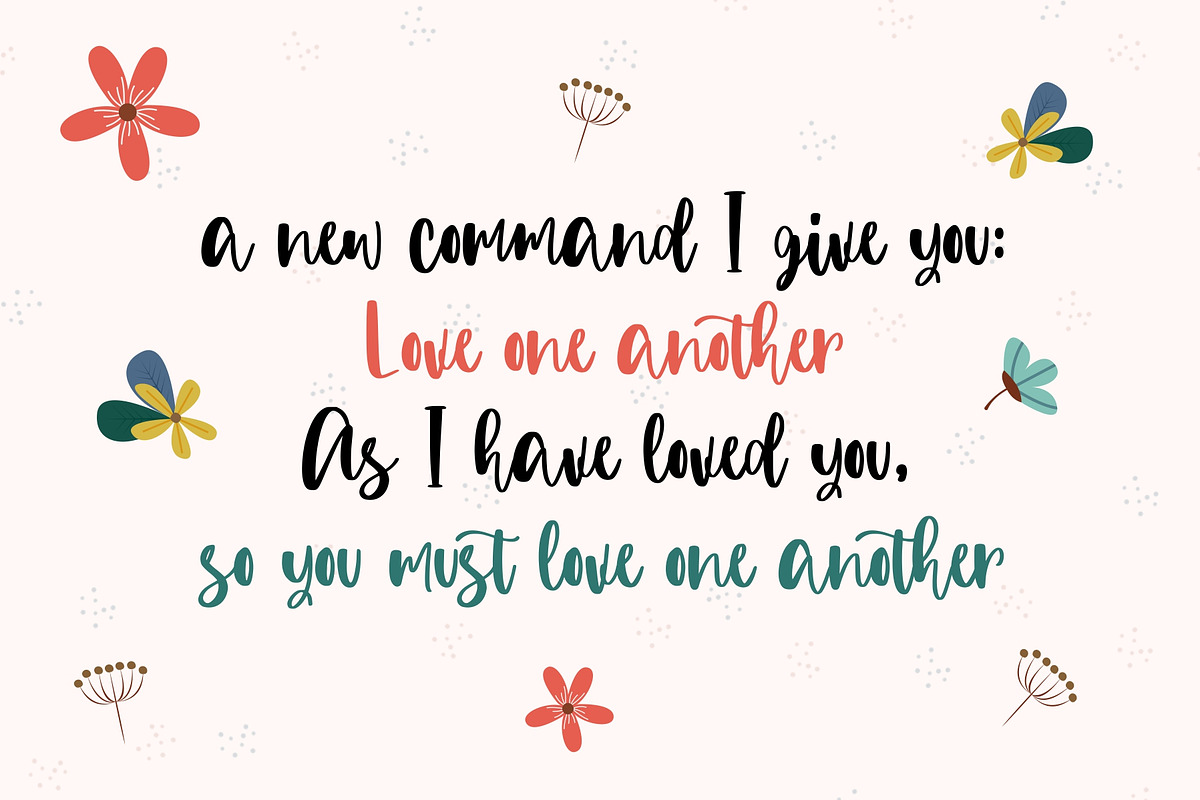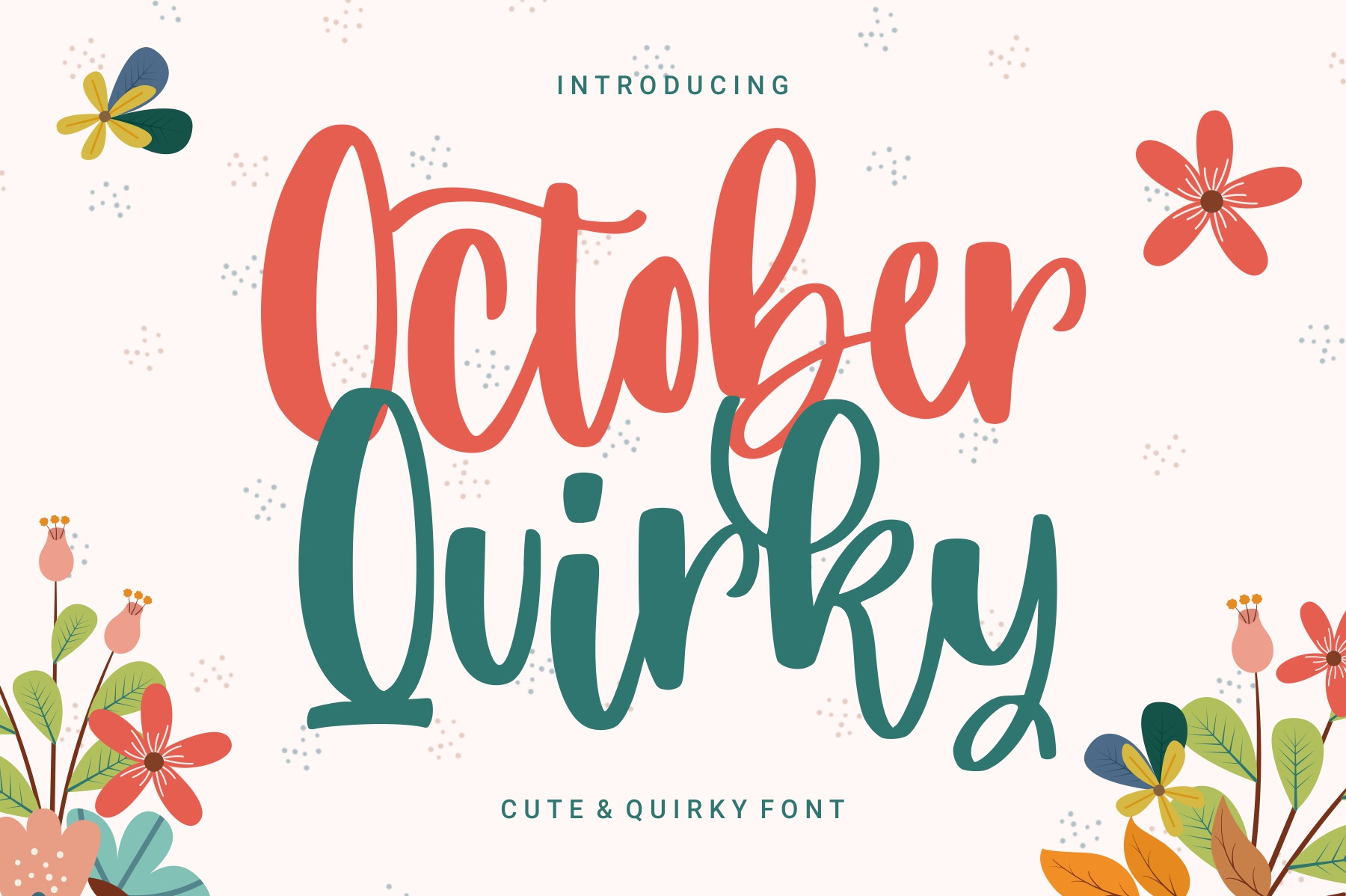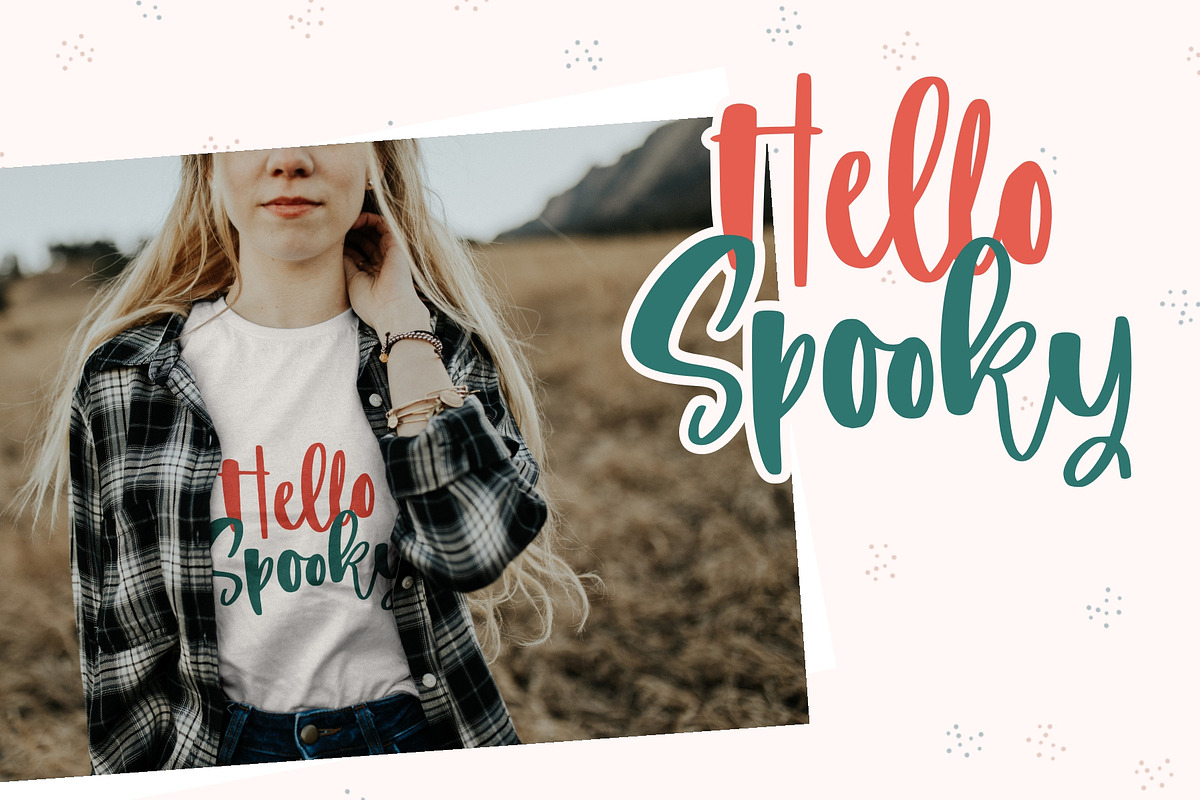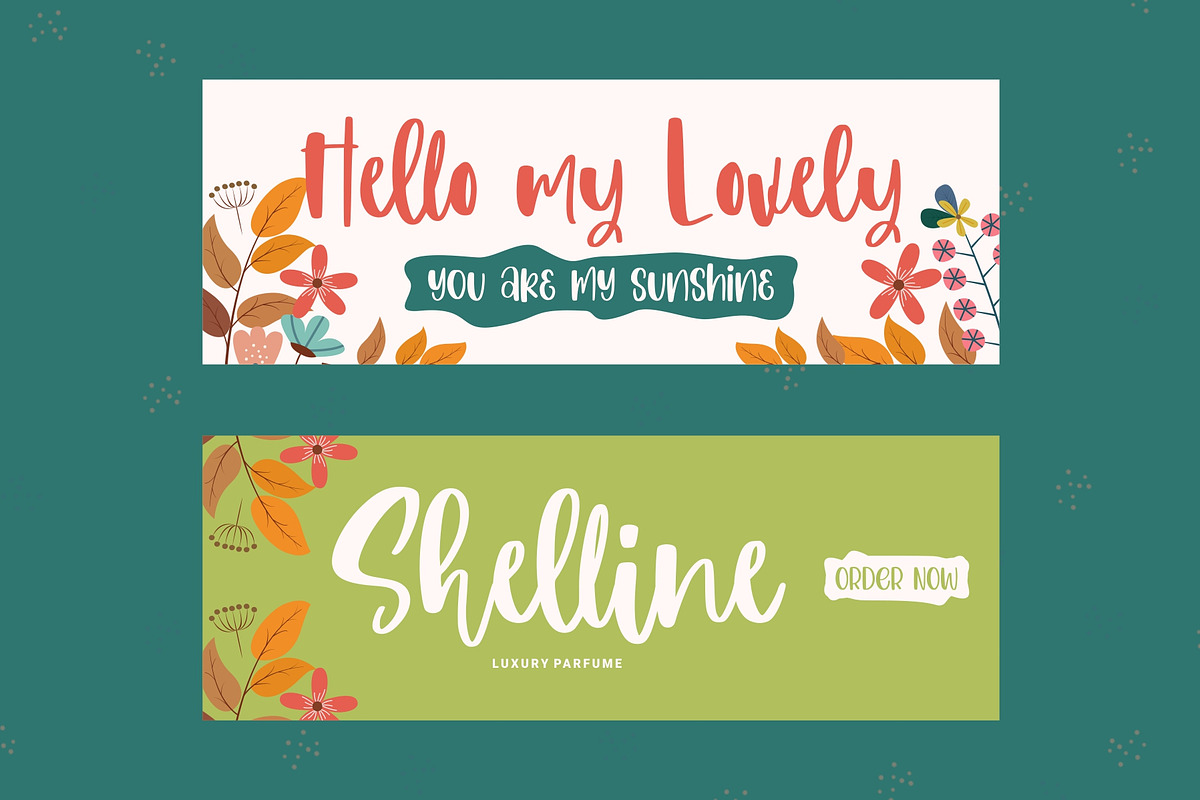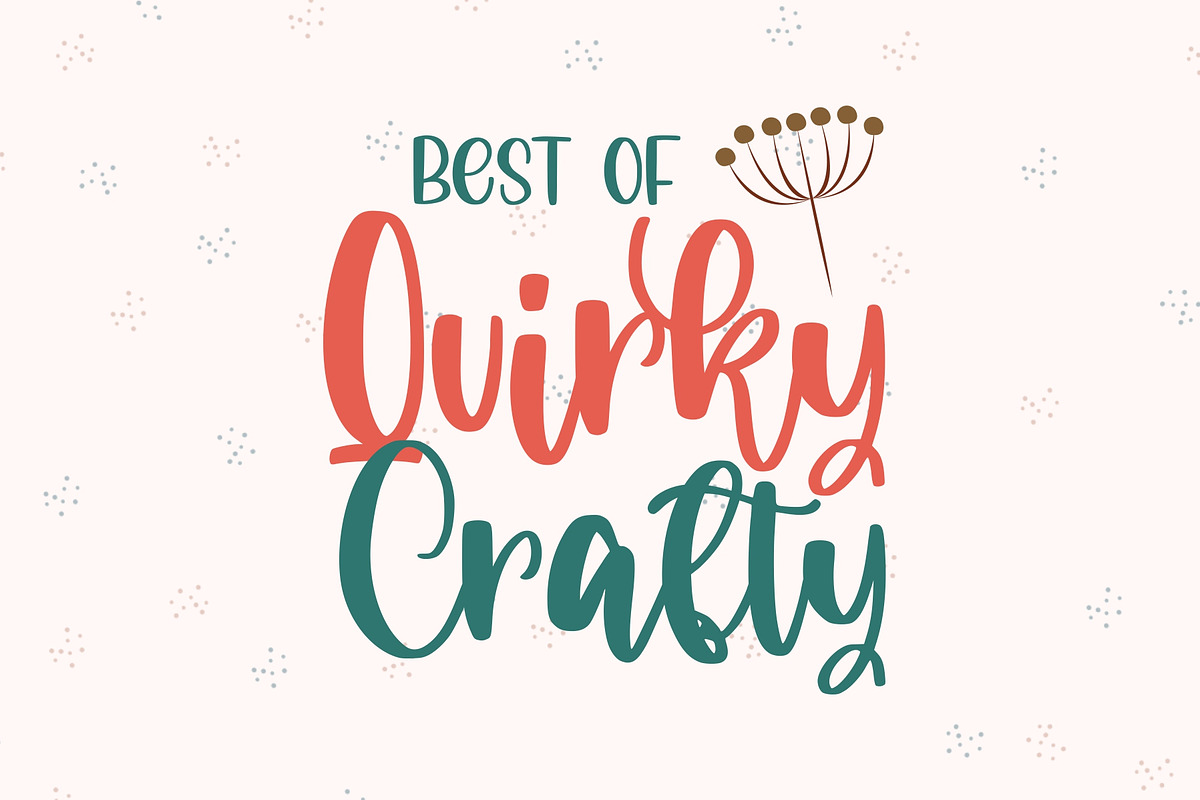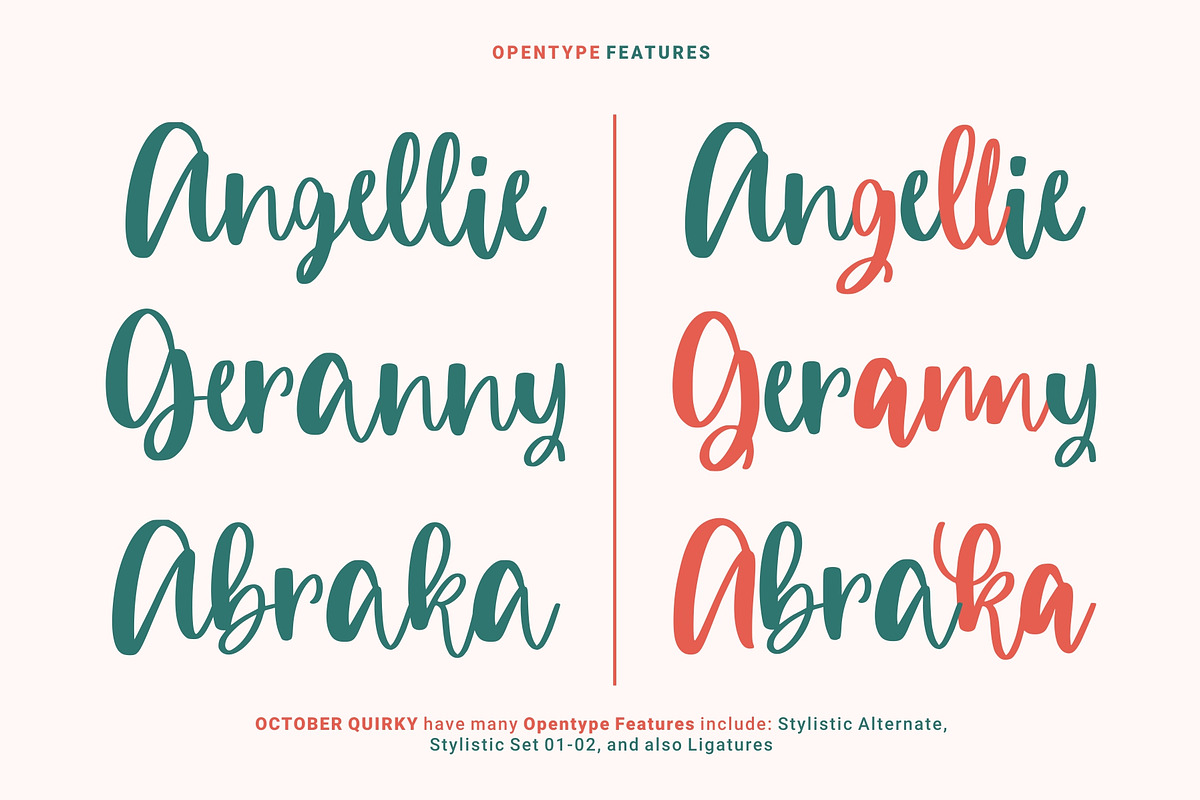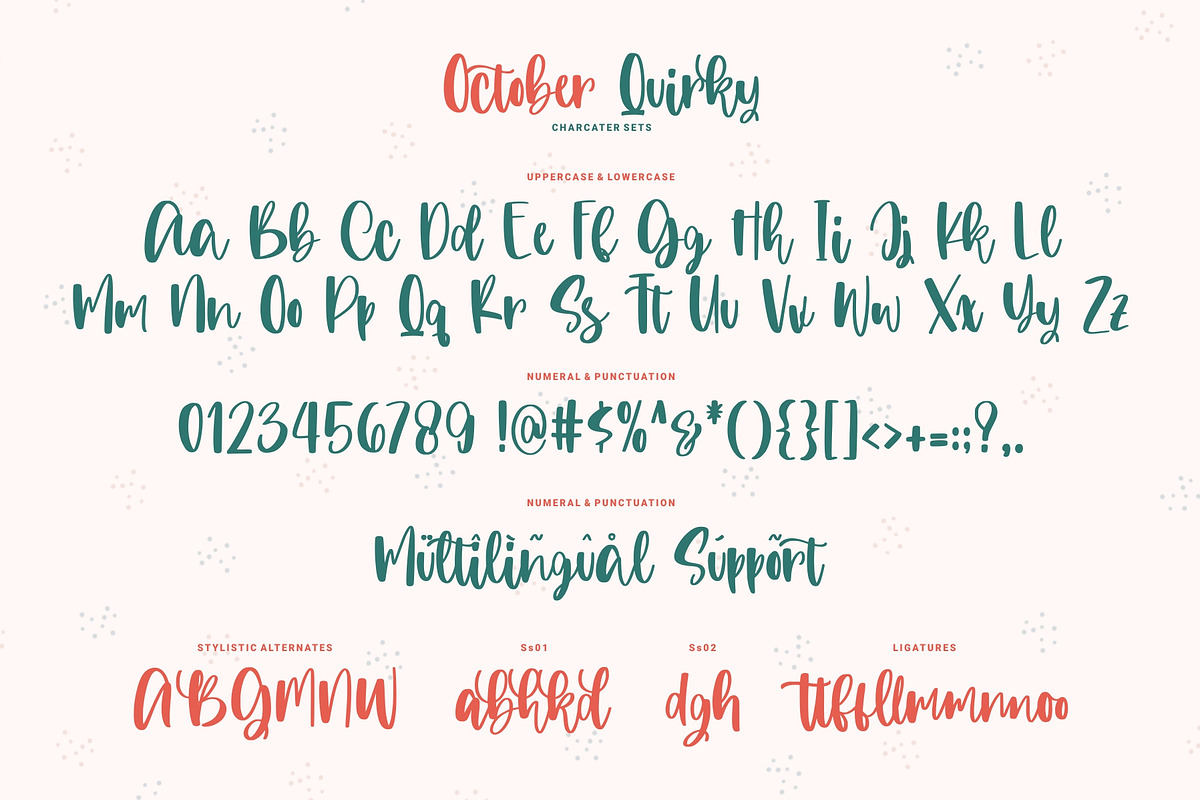
October Quirky - Cute Quirky Font
Produly Present October Quirky - Cute Quirky Font
October Quirky - Cute Quirky font make from handlettering ideas in typeface. This font includes full of Alphabetical glyphs, Numerals, and punctuation. This is so perfect for invitations, monograms, wedding, fashion, branding, label, handlettering or logotype.
- Opentype Features: Stylistic Alternates, Stylistic Set, Ligatures
- Very great for branding, logotype, handletteing, invitations, or fashion branding.